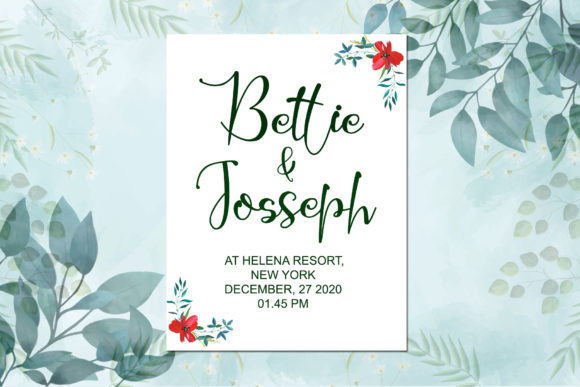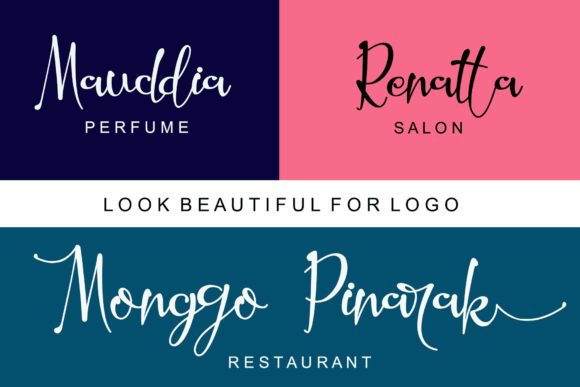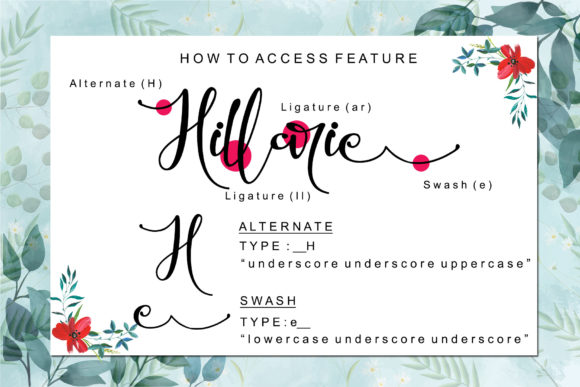
Discover Your New Signature Style with Hillarie Font
There’s nothing quite like the rush of creativity that comes when a new font catches your eye. You’re browsing through your design library, scrolling through fonts, and suddenly, you stumble upon something that makes your heart skip a beat. For designers, this moment is a game-changer – it’s the spark that ignites a new project, a fresh idea, or a bold statement. And for those who’ve experienced it, we’re about to introduce you to a font that might just become your new signature style.
Meet Hillarie Font, a stunning handwritten font that effortlessly blends classic calligraphy with a modern twist. This exquisite font is designed to elevate your projects to new heights, making it a valuable addition to any designer’s toolkit. Whether you’re working on a branding project, a wedding invitation, or a social media campaign, Hillarie Font is sure to bring a touch of sophistication and elegance to your designs.
- Unique Characteristics: Hillarie Font features a unique blend of modern and vintage elements, with elegant curves and geometric shapes. It is particularly suitable for use in creative and design-focused applications.
Hillarie Font Review
I recently had the chance to work with the Hillarie font, and I must say, it’s a mixed bag. Here’s my honest review:
- The Hillarie font has a beautiful, elegant feel to it. It’s perfect for creating a sophisticated and refined look.
- The font is highly legible, even at smaller sizes, making it a great choice for body text.
- The Hillarie font comes in a range of weights, from light to bold, giving you plenty of options for customization.
- The Hillarie font may not be the best choice for casual or informal designs. It’s a bit too formal for that.
- The font may not be as versatile as some other fonts on the market. It’s primarily suited for print designs.
- Some users may find the font a bit too ornate or busy, especially at larger sizes.
Overall, I think the Hillarie font is a solid choice for designers who want to create a sophisticated and elegant look. While it may have some limitations, it’s a great option for print designs and can add a touch of refinement to any project.
Tips for Getting the Most Out of Hillarie Font
1. Use Hillarie Font for titles and headings to add a touch of elegance.
2. Pair Hillarie Font with other sans-serif fonts for a clean and modern look.
3. Experiment with different font sizes and colors to create visual interest.
Hillarie Font is perfect for:
1. Branding and marketing materials.
2. Digital publications and e-books.
3. Social media graphics and ads.
Alternatives to Hillarie Font for Designers
Great Vibes is a beautiful, elegant script font perfect for creating a sense of sophistication and refinement. It’s ideal for use in invitations, wedding stationery, and other formal designs where a touch of luxury is required.
Compared to Hillarie Font, Great Vibes is more ornate and luxurious, making it a great choice for high-end designs. While Hillarie Font is more versatile and can be used in a variety of contexts, Great Vibes is better suited for formal, high-end applications.
Carolyna Pro is a modern, elegant script font that’s perfect for creating a sense of elegance and sophistication. It’s ideal for use in designs where a touch of glamour and sophistication is required.
Compared to Hillarie Font, Carolyna Pro is more refined and polished, making it a great choice for high-end designs. While Hillarie Font is more playful and versatile, Carolyna Pro is better suited for formal, elegant applications.
Alex Brush is a beautiful, elegant script font that’s perfect for creating a sense of warmth and sophistication. It’s ideal for use in designs where a touch of elegance and refinement is required.
Q: Does Hillarie Font support Unicode characters?
Yes, Hillarie Font supports a wide range of Unicode characters, including Latin, Cyrillic, and Greek alphabets. This ensures that you can use the font to typeset text in multiple languages, including English, Spanish, French, German, and many others.